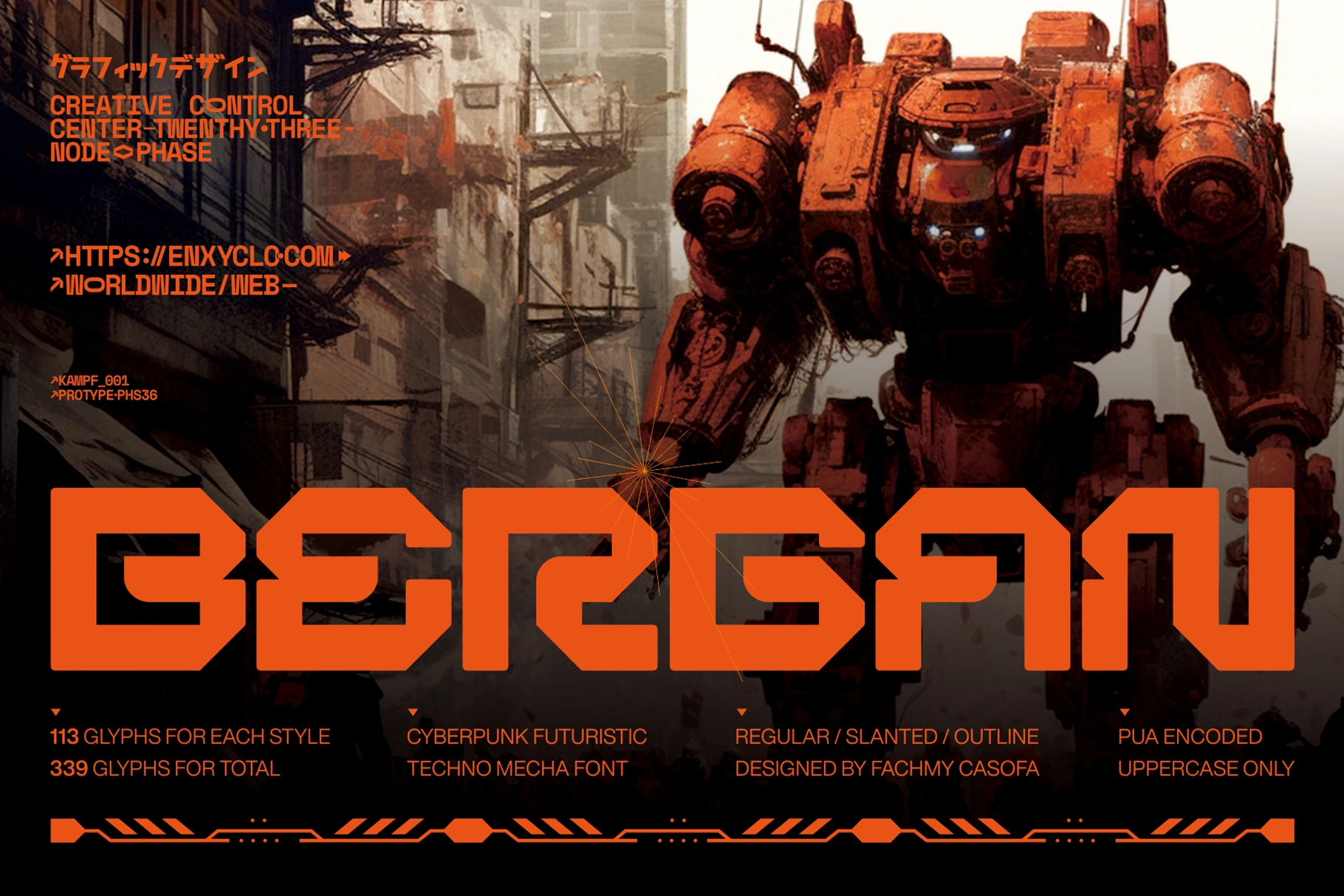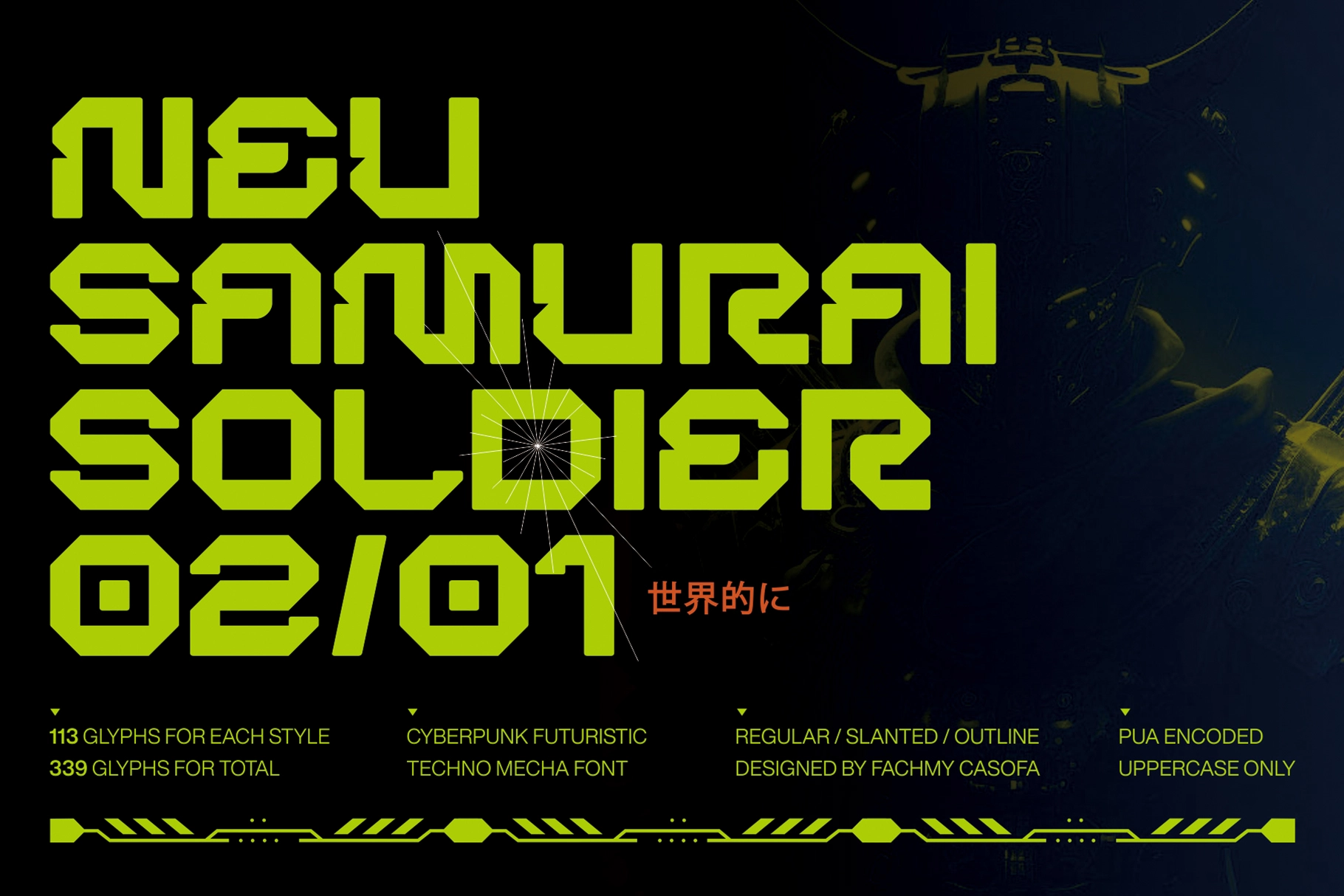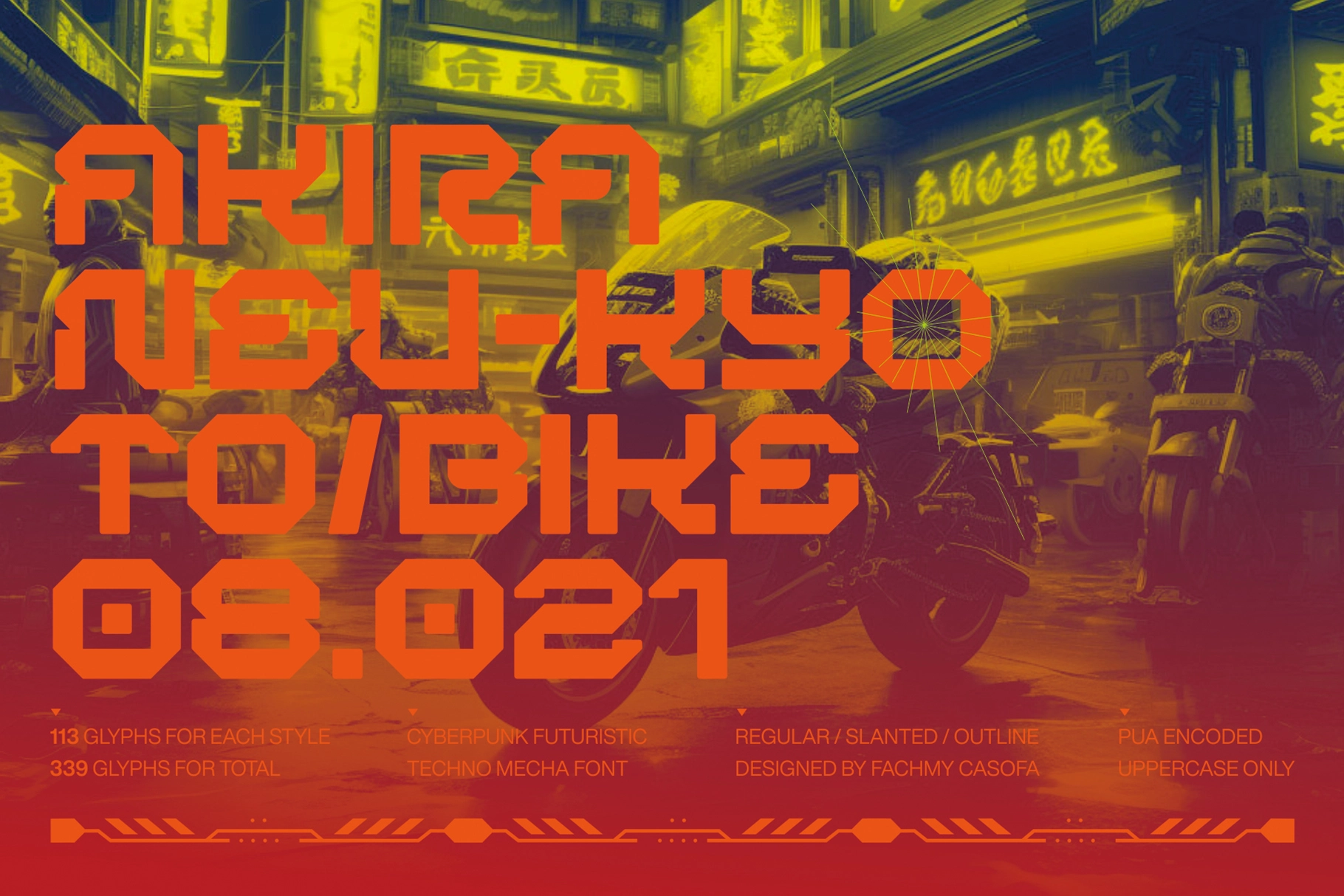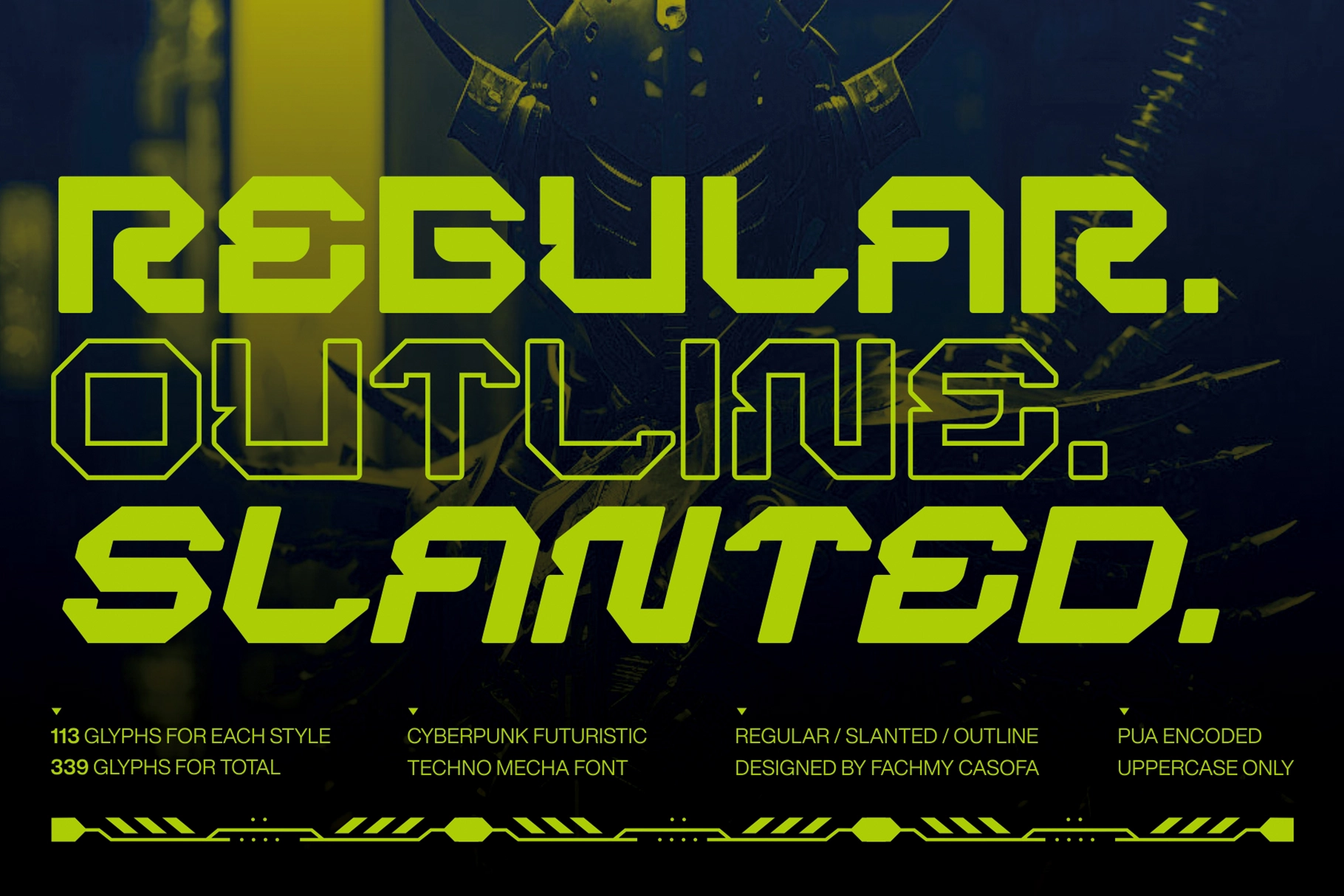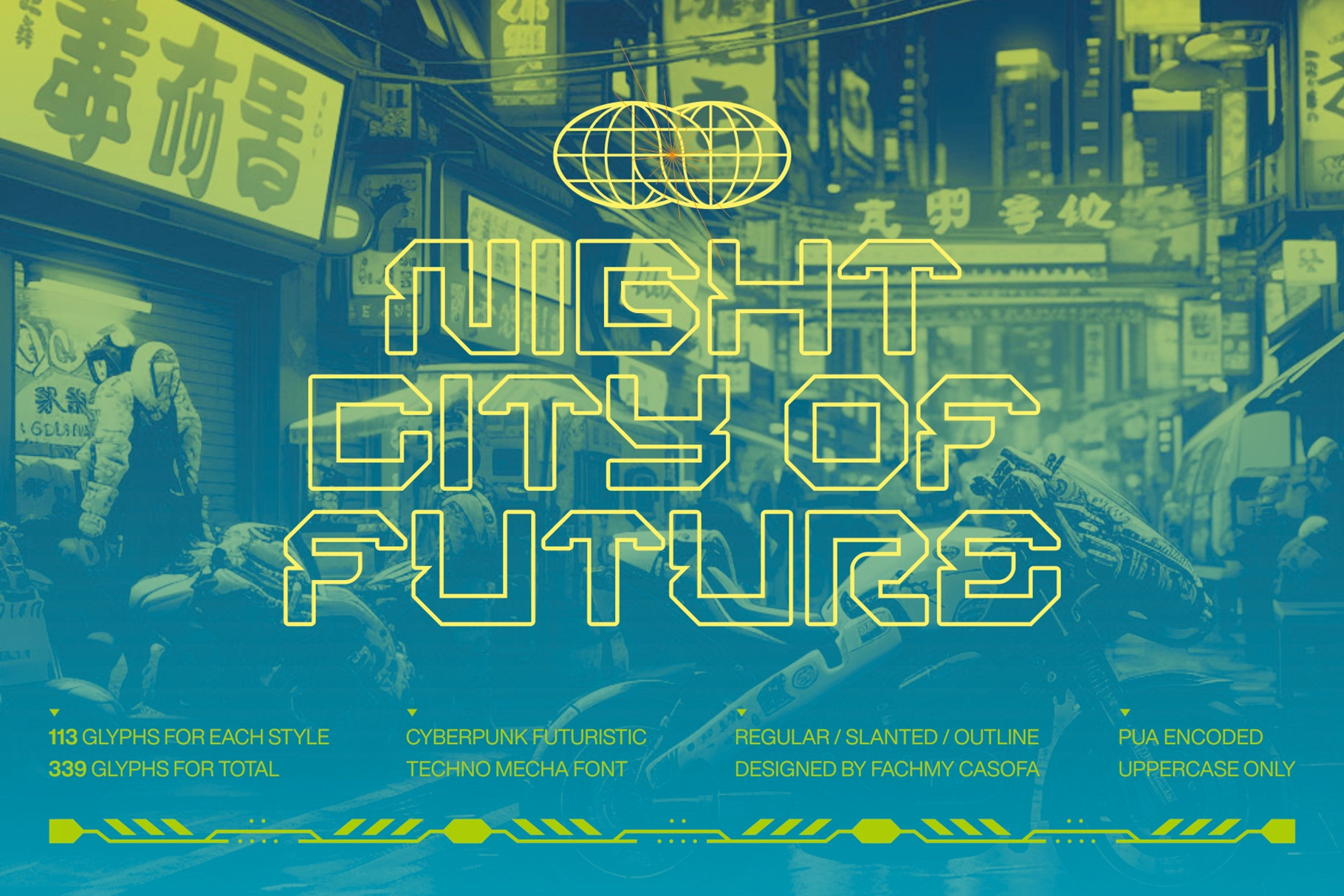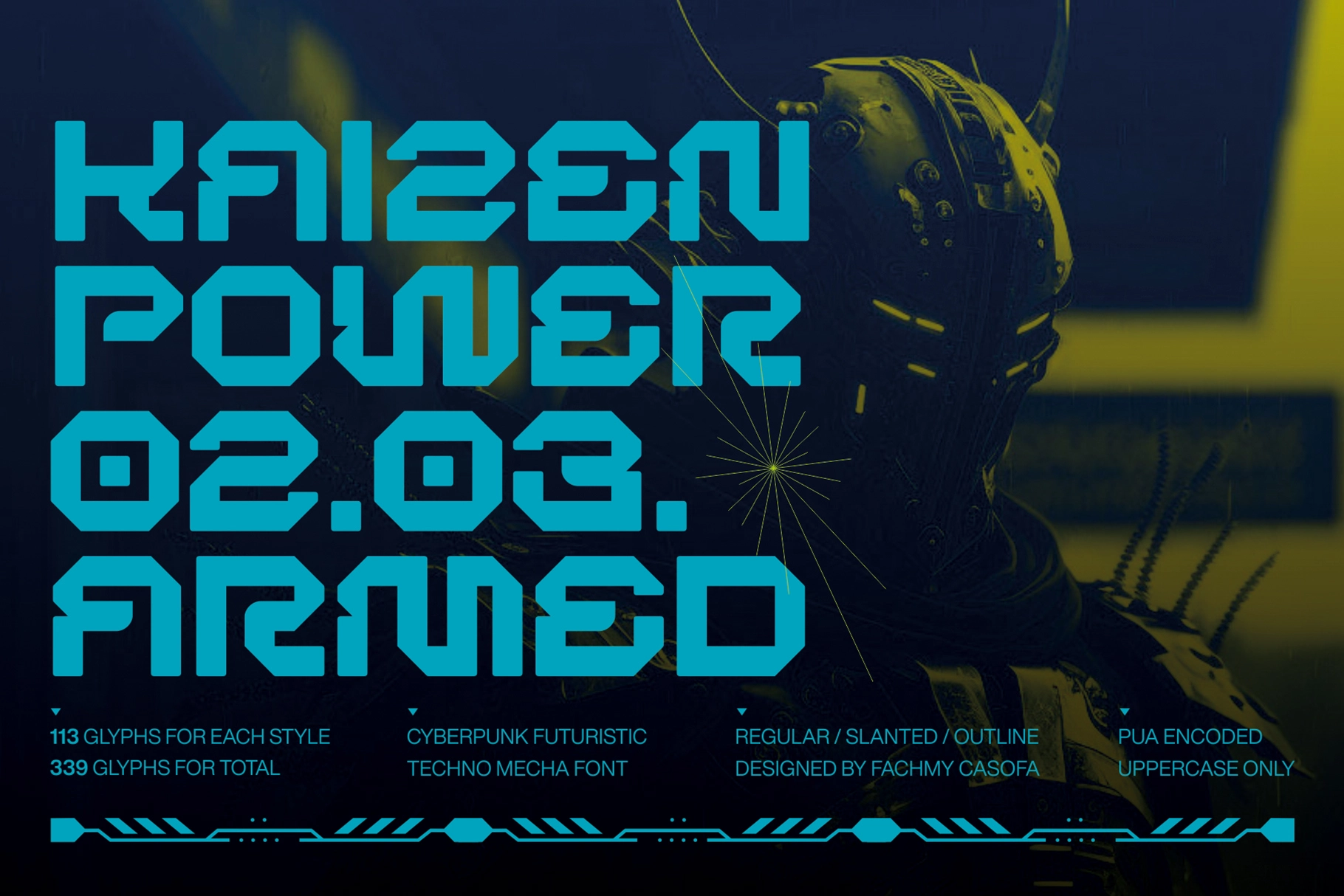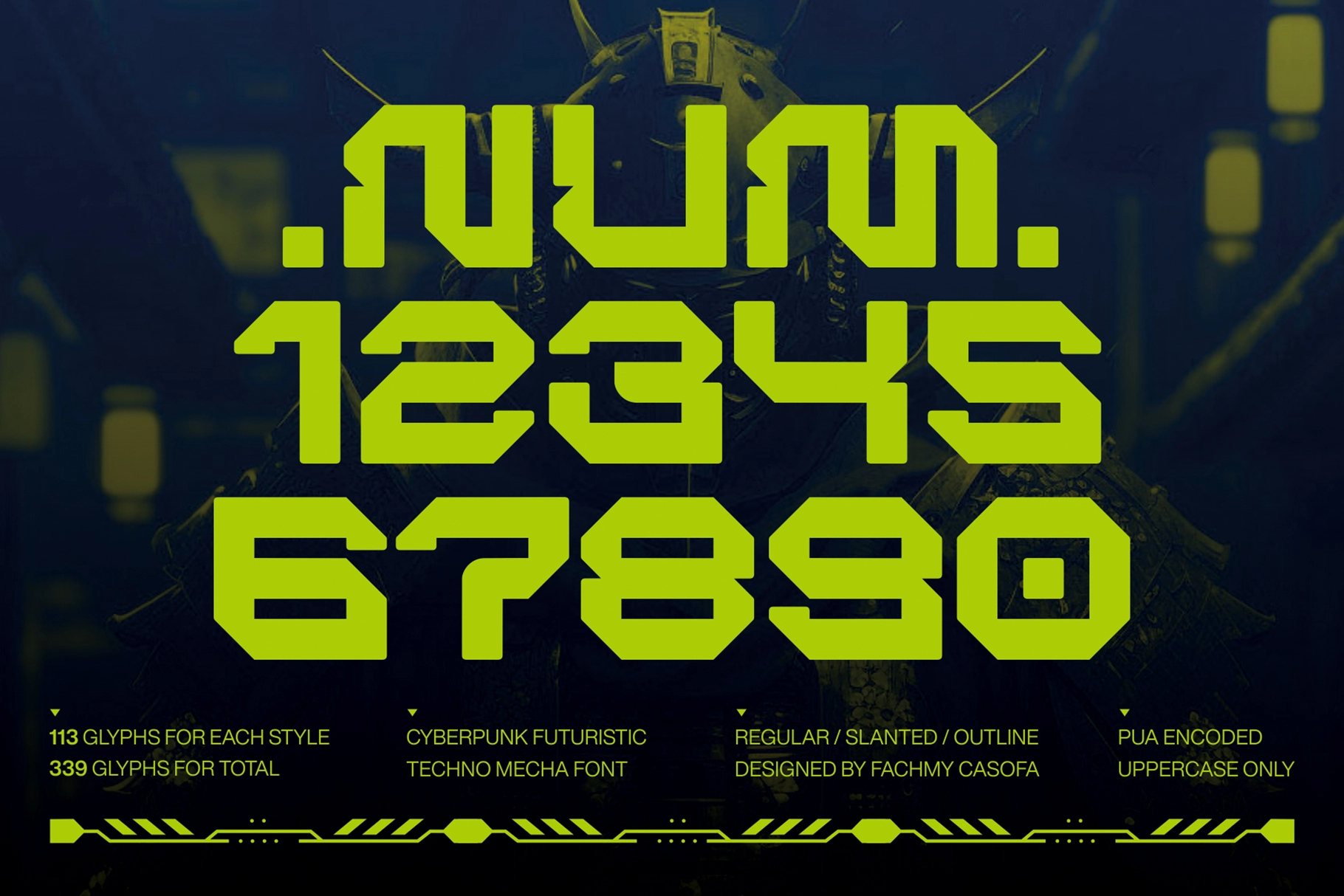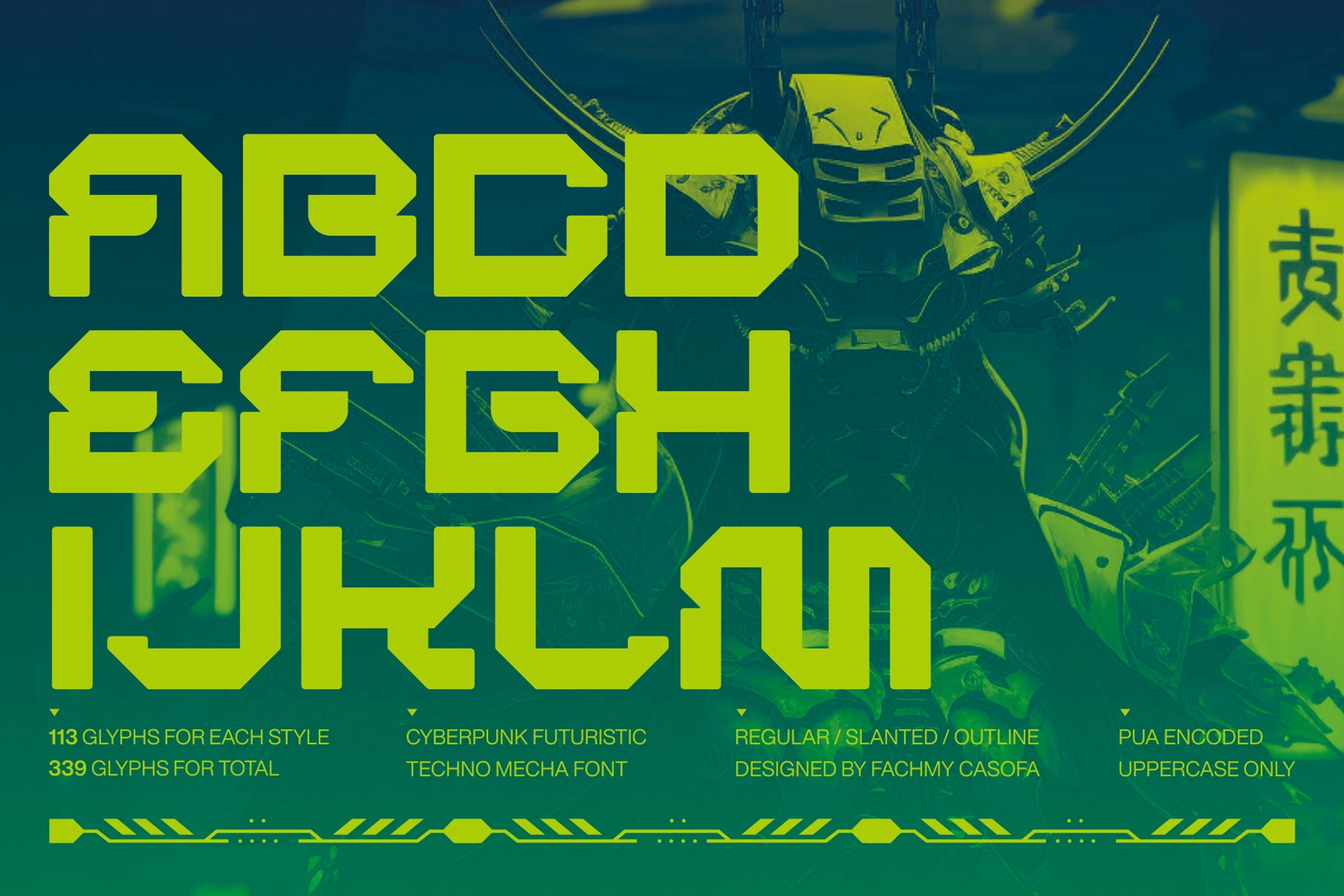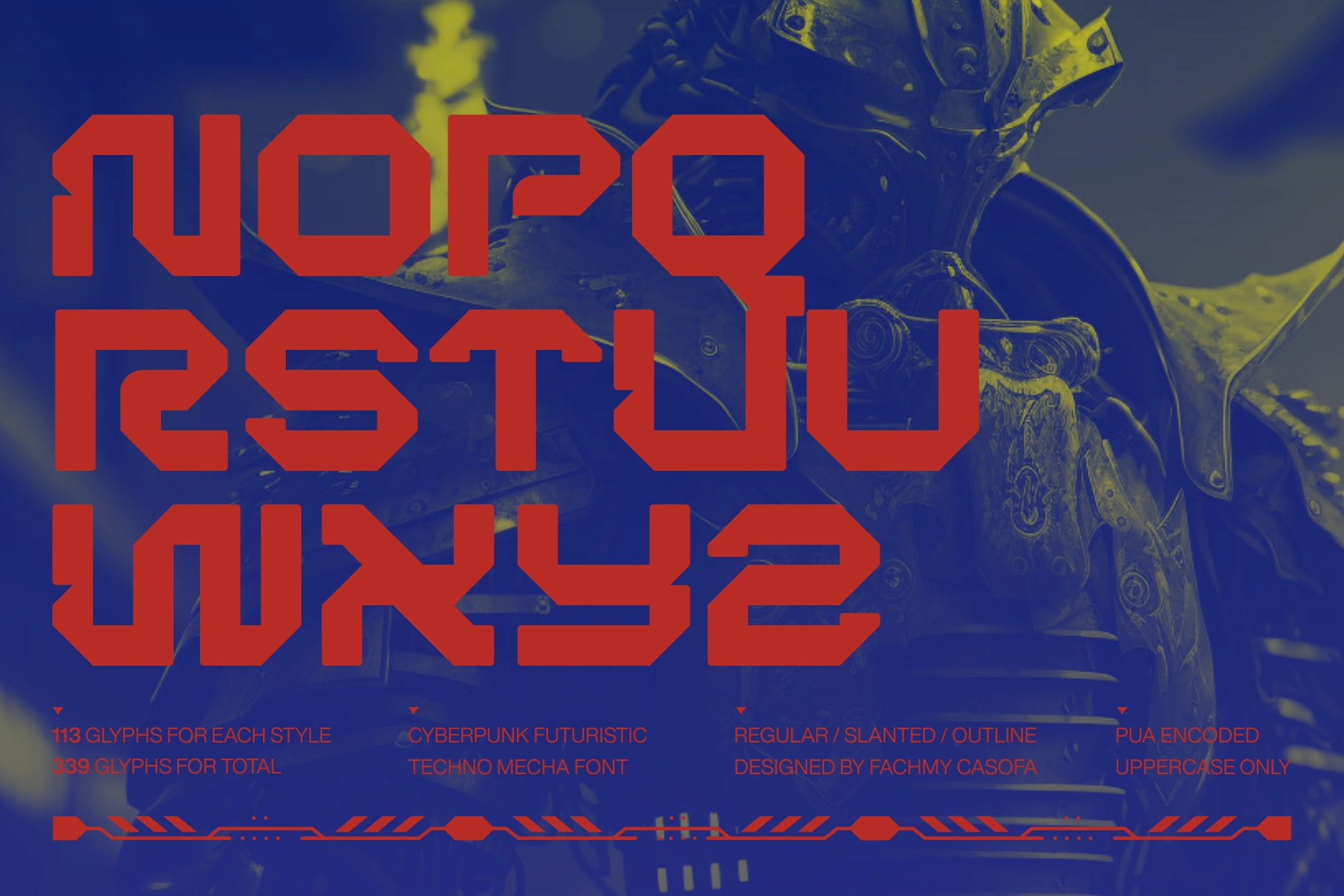
Bergan - Cyberpunk Display Font
Bergan - Cyberpunk Futuristic Display Font inspired by cyberpunk aesthetics, industrial design, and mecha visuals. With its sharp geometric construction and powerful letterforms, this font delivers a strong, high-tech presence that instantly elevates any modern design.
Designed to stand out, Bergan brings an intense and energetic feel, making it perfect for projects that require a cutting-edge, sci-fi atmosphere. Its structured forms and dynamic angles create a visually striking rhythm ideal for impactful headlines and branding.
Whether you're working on gaming visuals, tech branding, posters, or streetwear graphics, Bergan gives your typography a futuristic edge that feels both aggressive and stylish.
- 3 Styles: Regular, Outline & Slant
- Uppercase Letters
- Numerals & Punctuation
- Symbols Included
- 113 Glyphs per Style (339 Total)